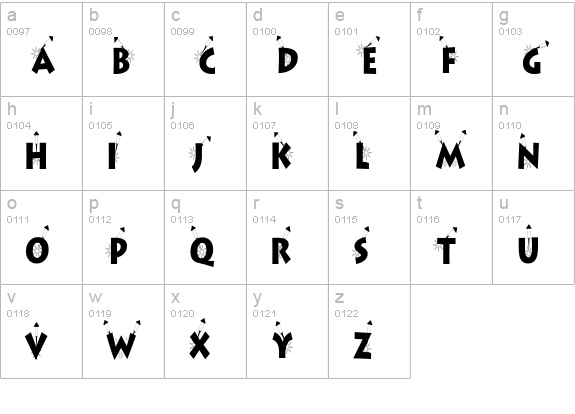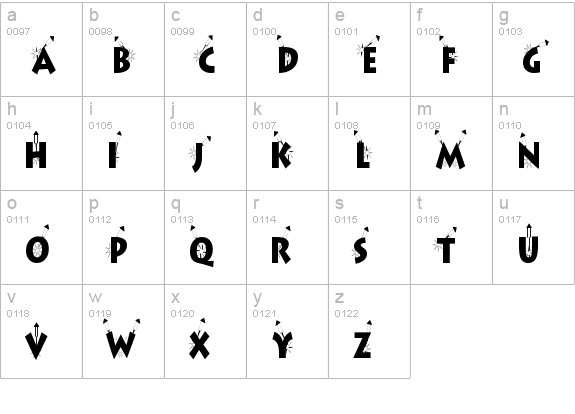
Apollo13Condensed Font Details
Apollo13Condensed is a sleek and modern font that exudes sophistication and style. With its condensed letterforms and unique design elements, this font is perfect for projects that require a contemporary touch. Whether you're designing a website, creating branding materials, or working on a print project, Apollo13Condensed will make your text stand out. Best of all, Apollo13Condensed is available for free download at FontsMarket.com. Yes, you read that right - this stunning font can be yours at no cost, making it a fantastic choice for both personal and commercial projects. Don't miss out on the opportunity to elevate your designs with the striking Apollo13Condensed font - download it for free today at FontsMarket.com!